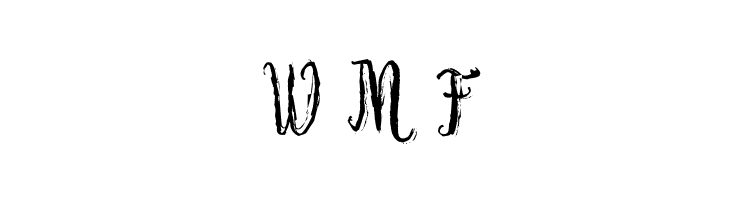
vtks Deja Vu Font
A decorative font with bold letters and intricate floral embellishments.
Vtks Garota Bonita Font
An ornate, hand-drawn font with swirling, brush-like strokes and intricate details.
Vtks Entulho Font
A distressed, grunge-style font with a textured, hand-drawn appearance.
Sangoku4 Font
Caveras - Cliff Modes - caveras.net
A bold, pixelated font with a retro video game aesthetic.